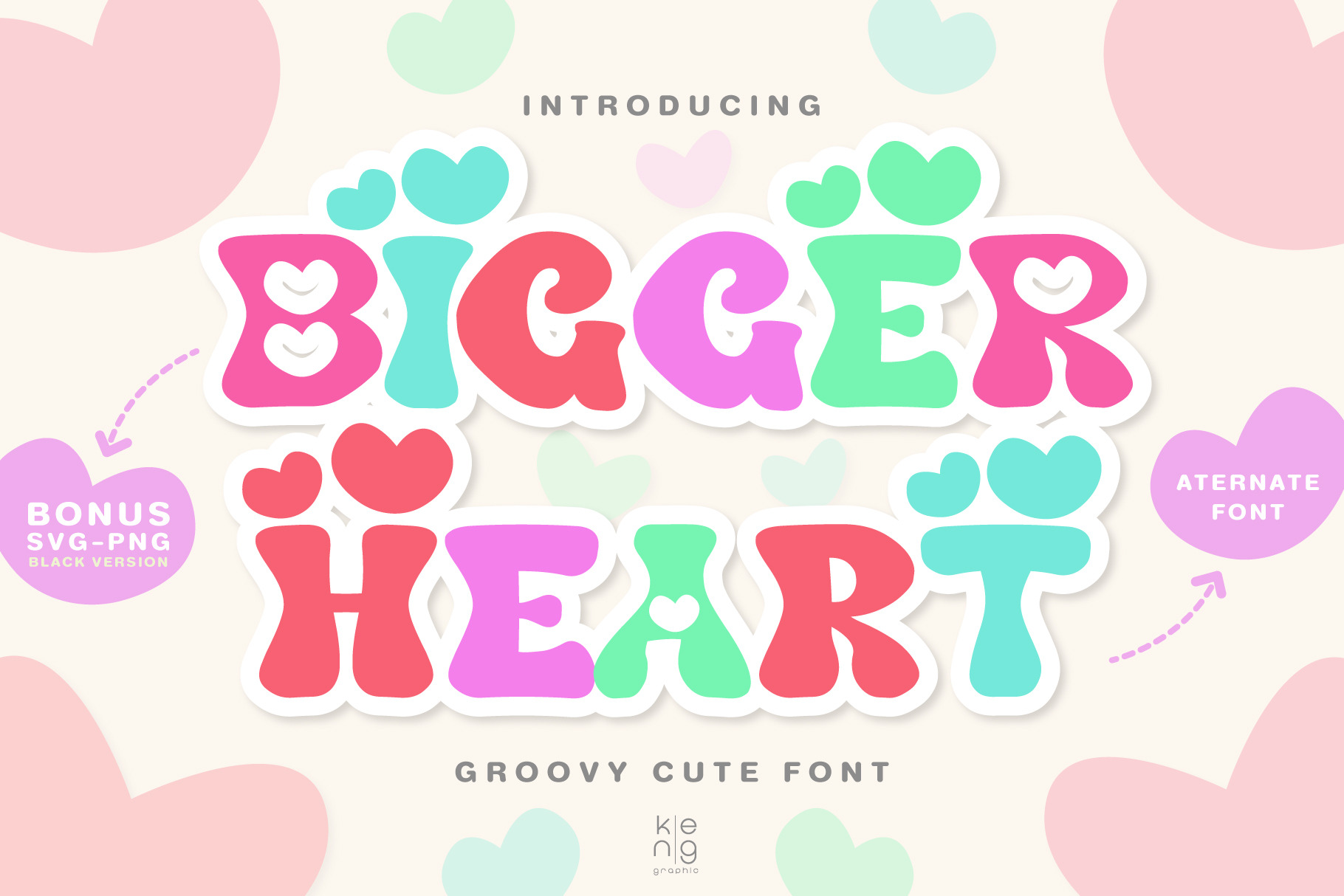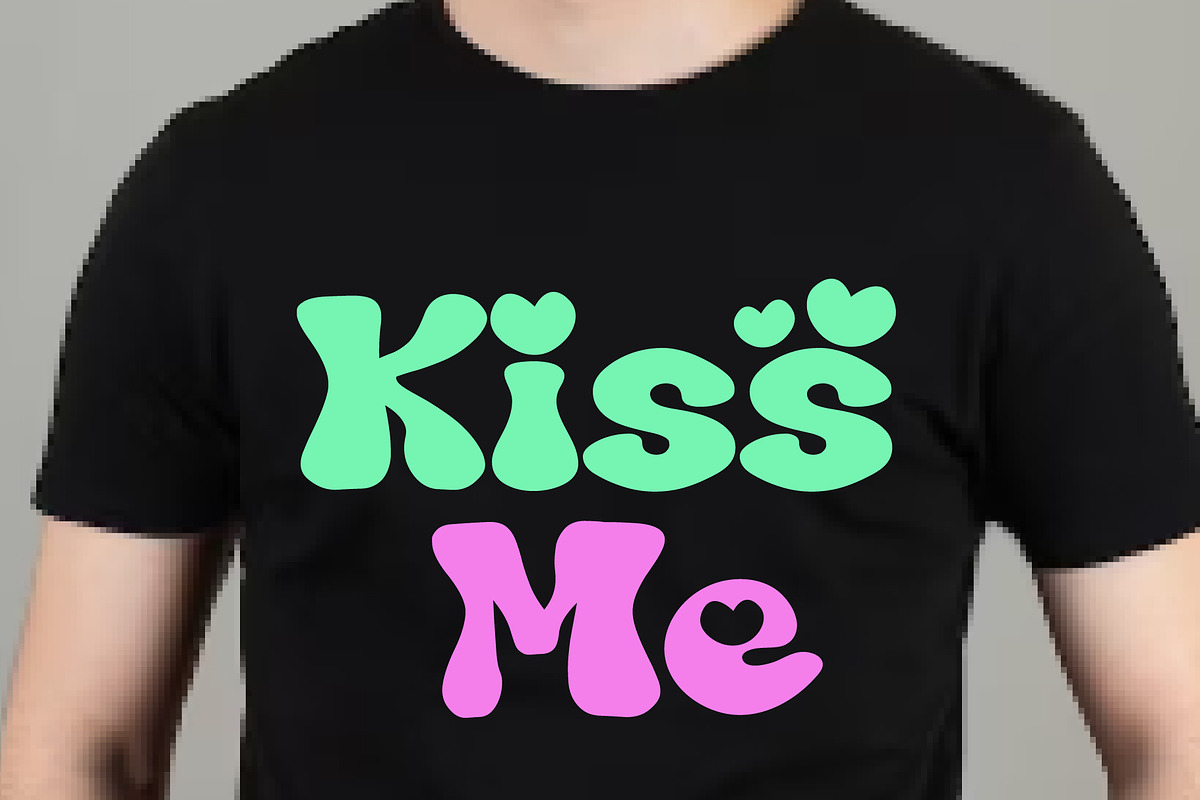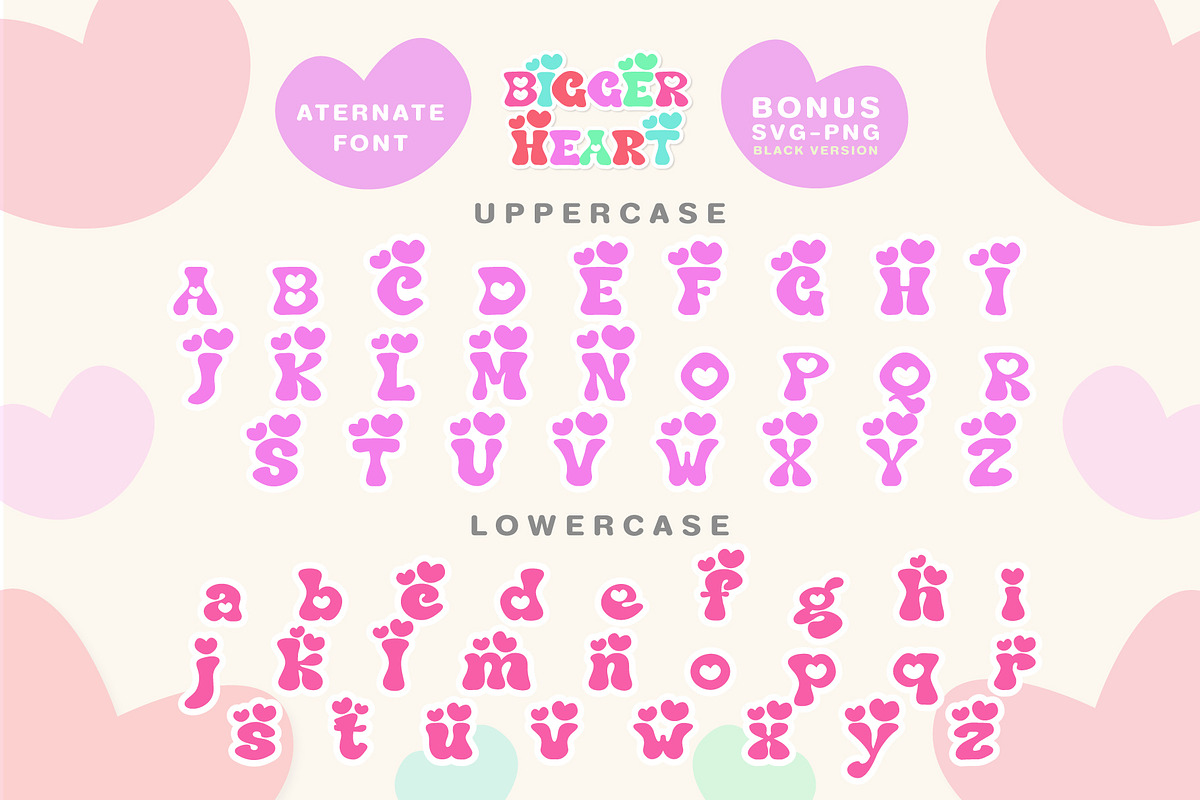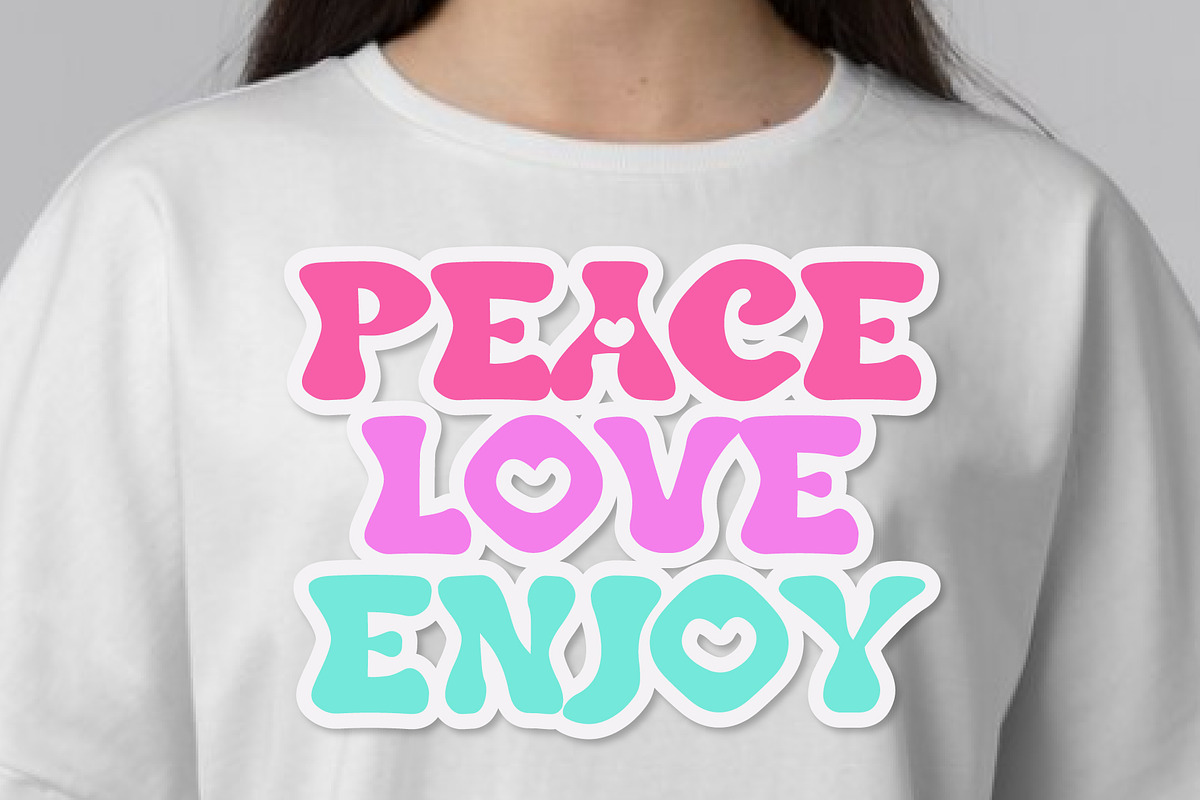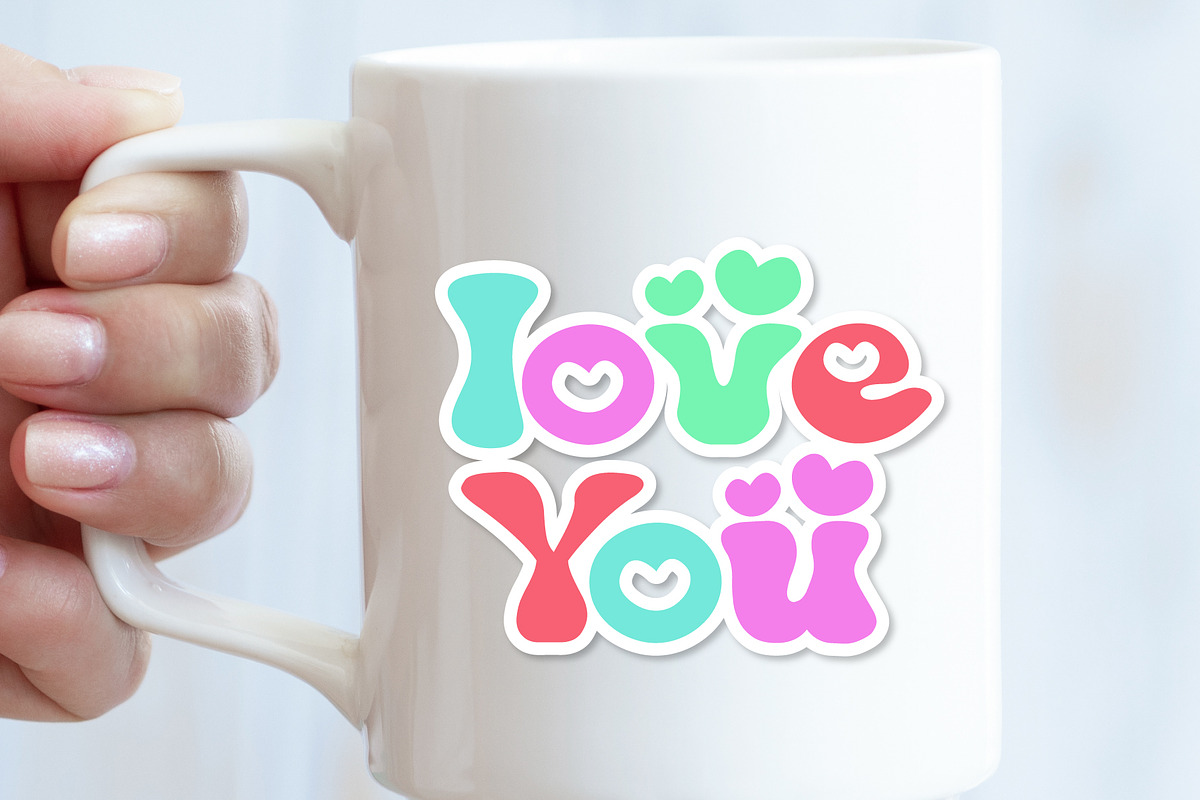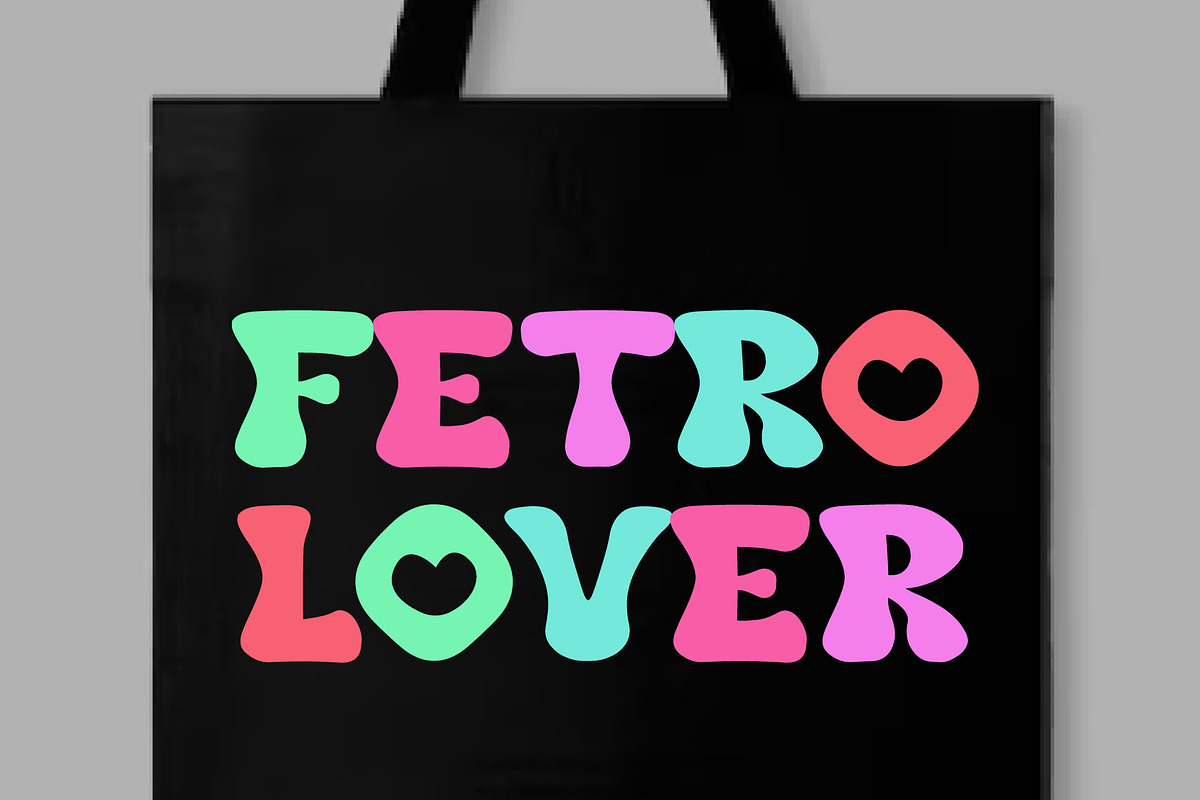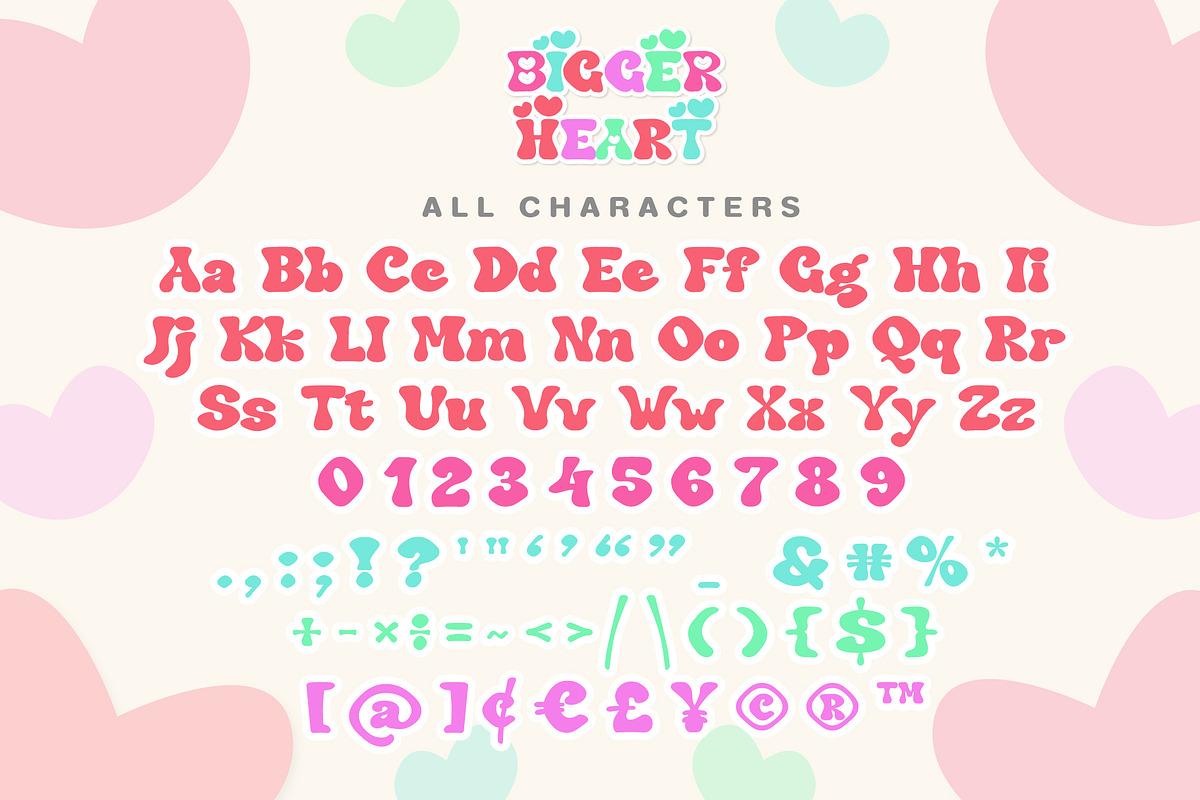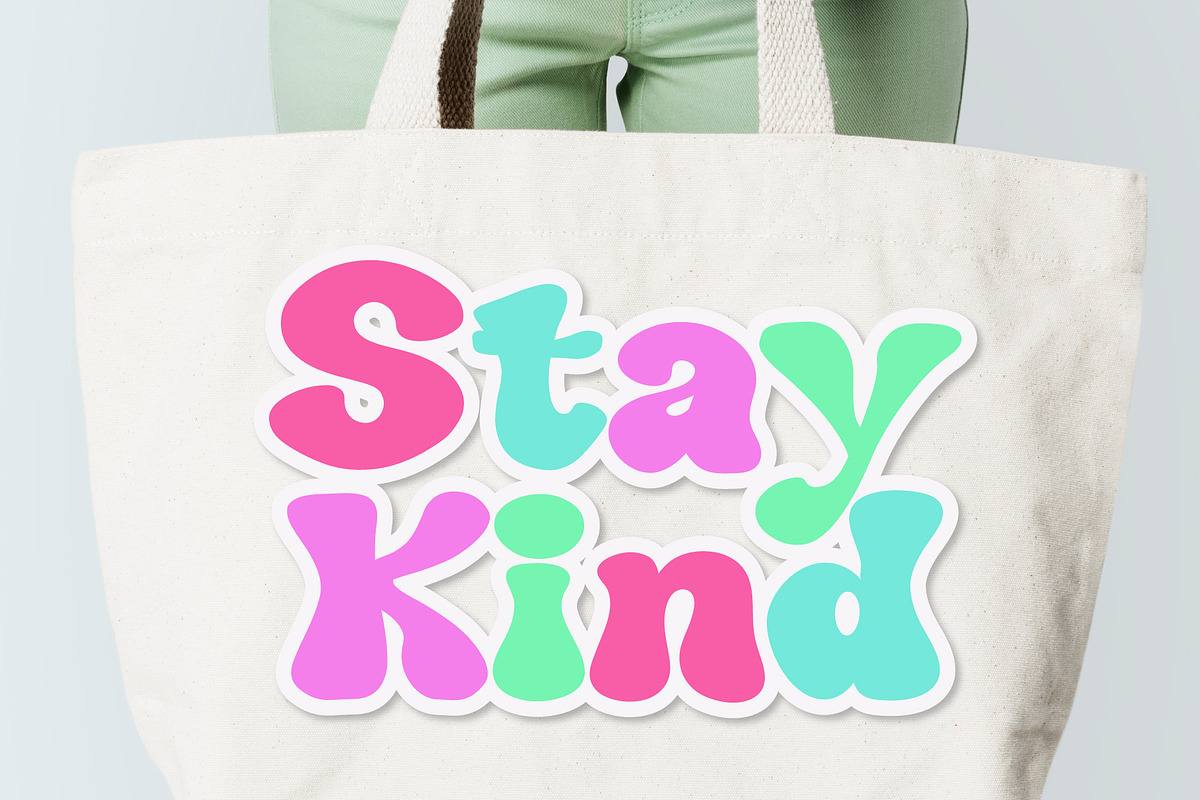
Bigger Heart Font
Bigger Heart is a Display font Groovy Style. Anything written in this font will be instantly recognizable and will grab attention. It will work great for comic book layouts, online games, cards, shirts, hats, bags, mugs, posters, movie titles, eye-catching social media posts. or anything that requires youth and courage.